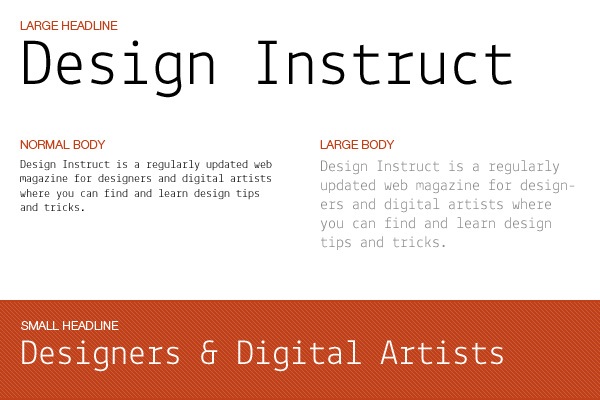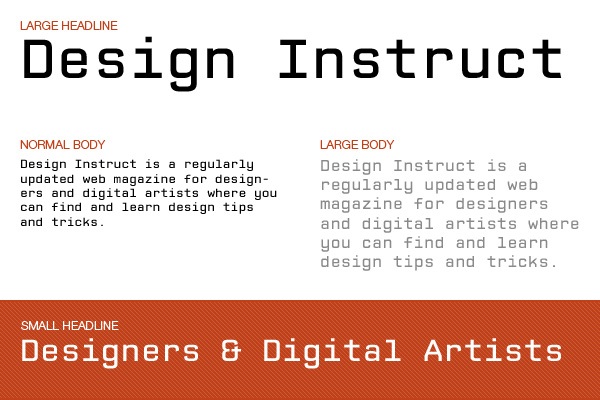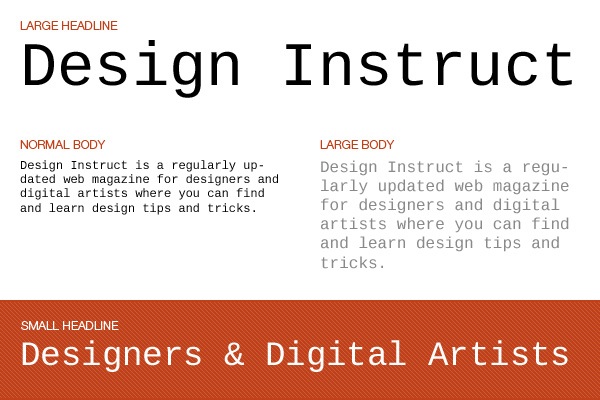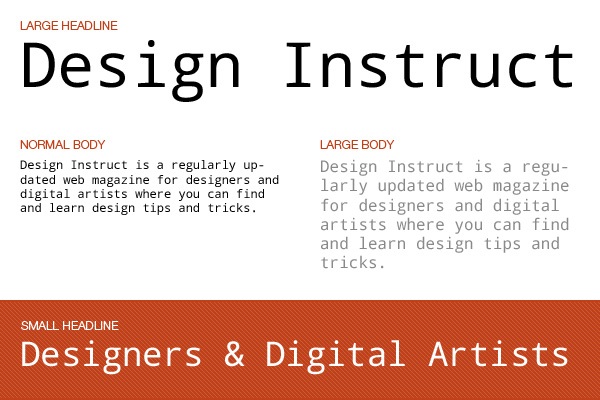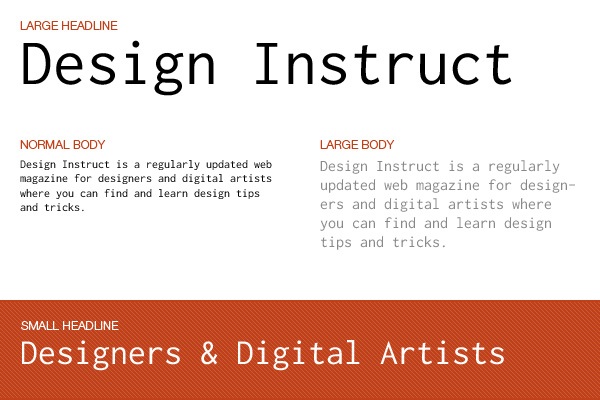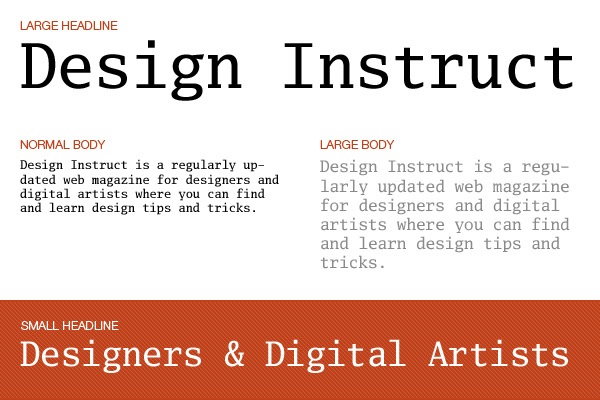
1. Audimat Mono
This stylish monospaced font comes from SMeltery, a French font foundry by Jack Usine. Audimat Mono comes in 9 variations (Audimat Mono Light is shown below).
2. Lekton
Designed in the ISIA, (Institute for Industrial Arts in Italy), Lekton was inspired by typefaces used on Olivetti typewriters, a company known for its focus on design.
3. Liberation Mono
Released by Red Hat, a major Linux distribution vendor, this monospaced font is part of the Liberation font family (that also includes Libration Sans and Libration Serif).
4. CP Mono
Inspired by typefaces used in British license plates, CP Mono is evenly spaced horizontally and vertically (resulting in shorter ascenders and decenders).
5. Cousine
Designed by Steve Matteson of Ascender Corporation, Cousine is a monospaced font specifically created with on-screen readability in mind.
6. DejaVu Mono
Part of the DejaVu font family (a group of fonts released into the public domain), DejaVu Mono is great for on-screen readability.
7. Droid Sans Mono
Droid Sans Mono, developed for the Android platform, is a monospaced variation of Droid Sans. The font is suitable in tabular settings.
8. Telegrama
Telegrama is a monospaced font with futuristic aesthetics. The font was designed by Japanese designer Yamoaka Yasuhiro.
9. Inconsolata
This font by Raph Levien can work very well in designs, but it is most known for, and highly regarded, as a beautiful and readable “programmer’s font“.
10. Luxi Mono
This functional monospaced font made by Kris Holmes and Charles Bigelow is part of the Luxi font family (which also includes Luxi Sans and Luxi Serif).